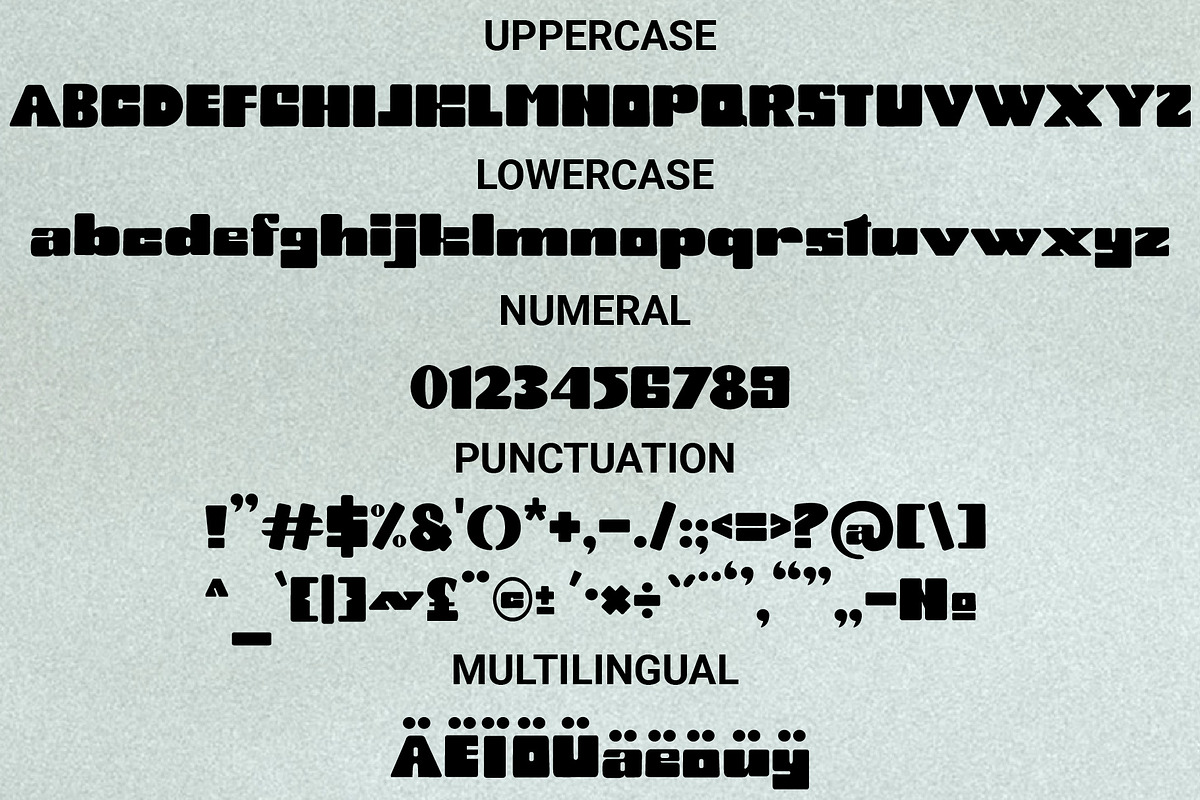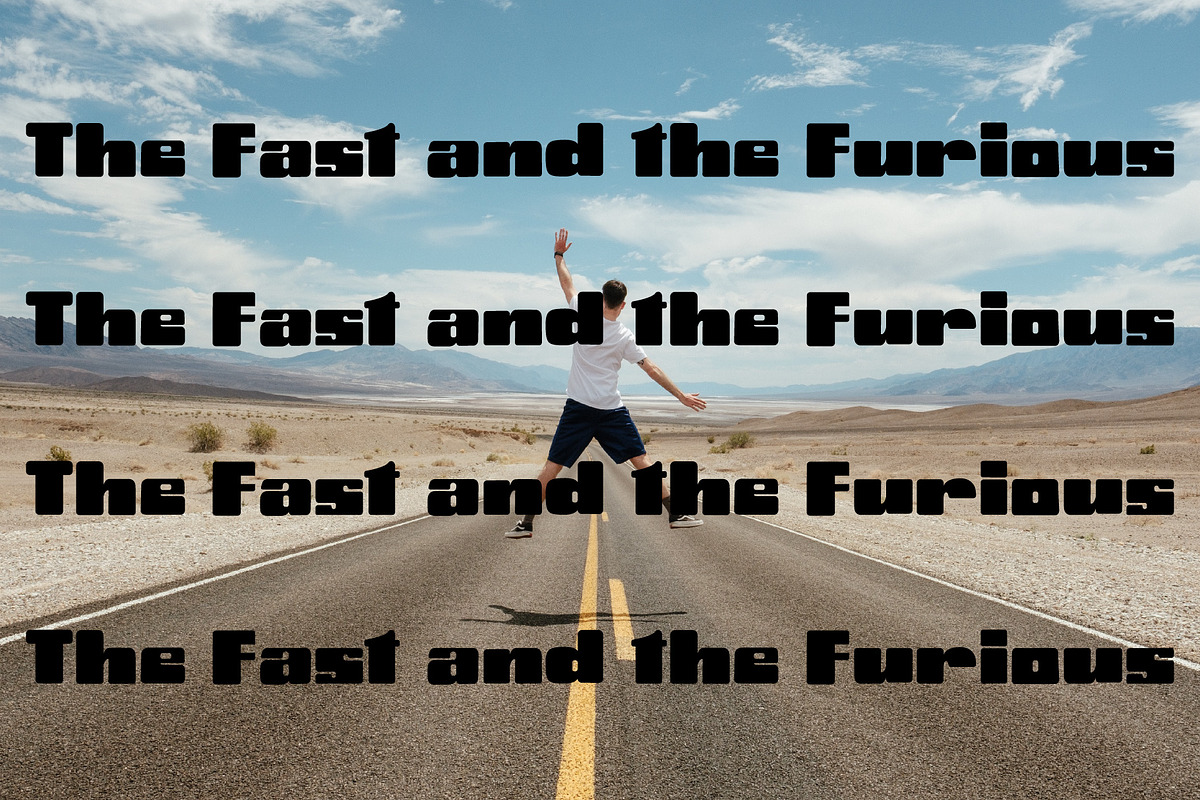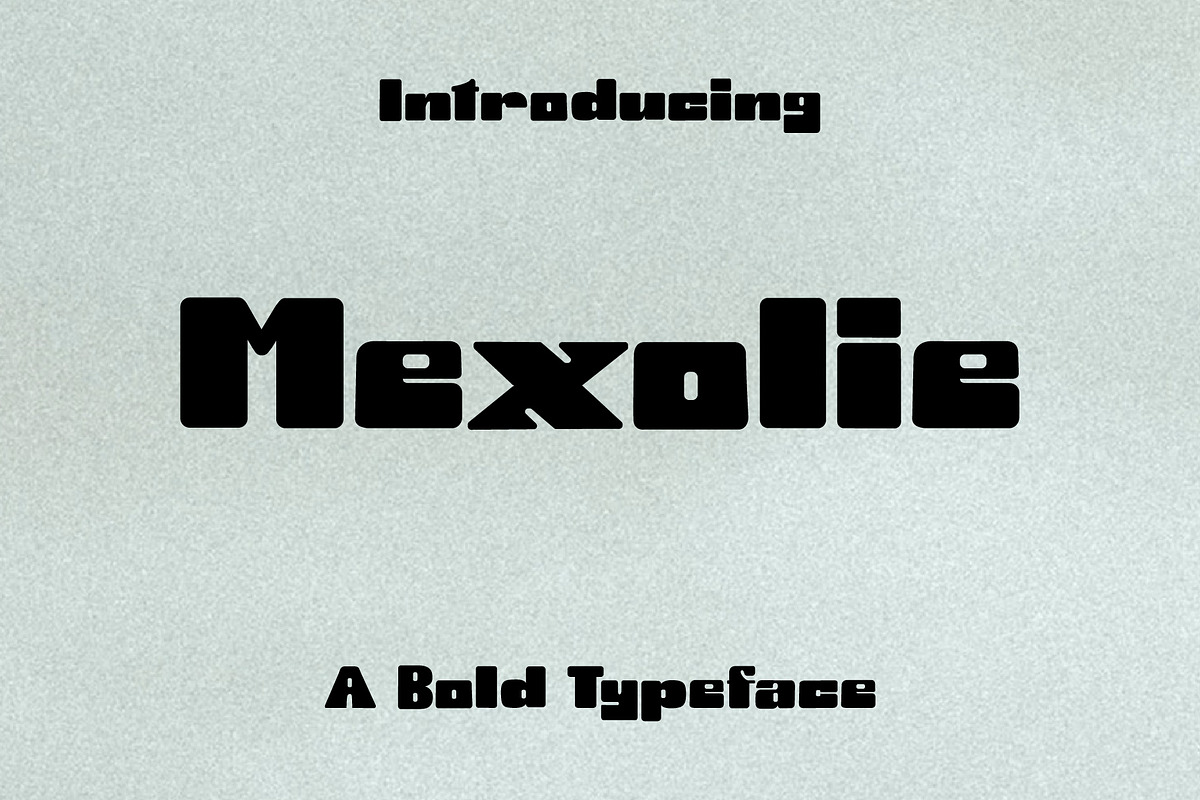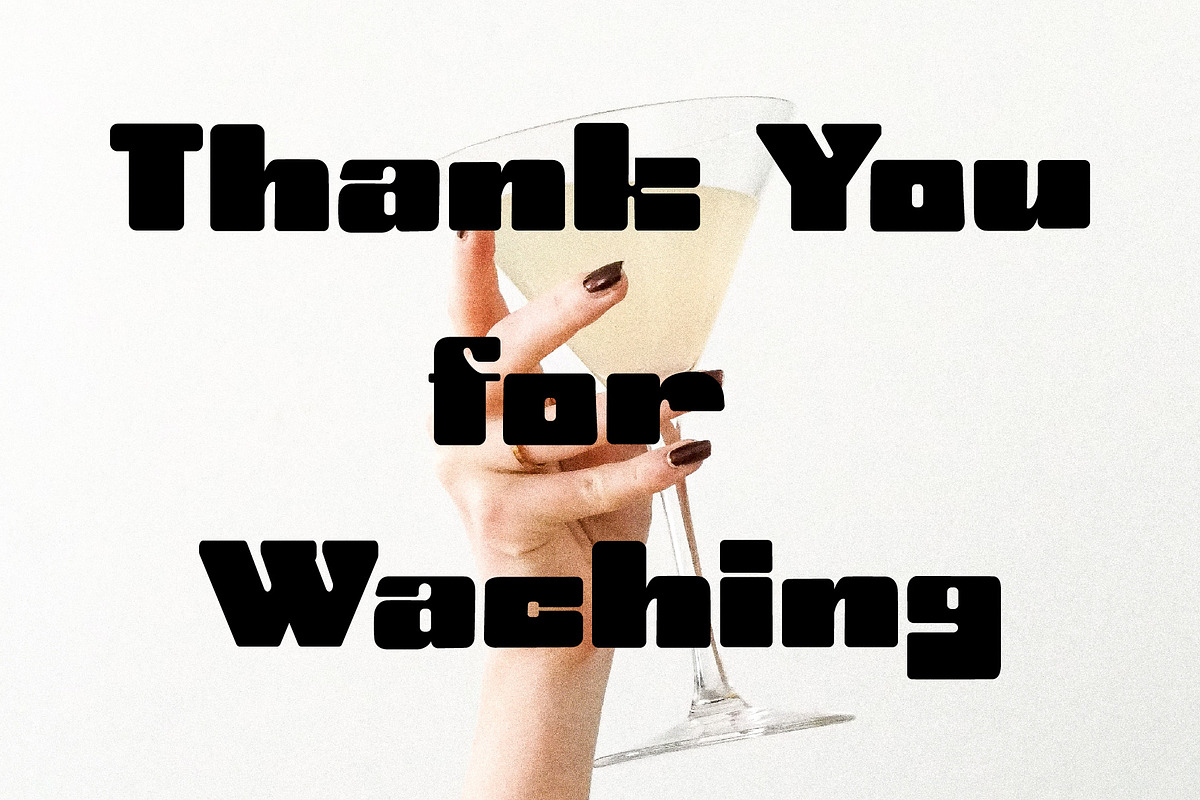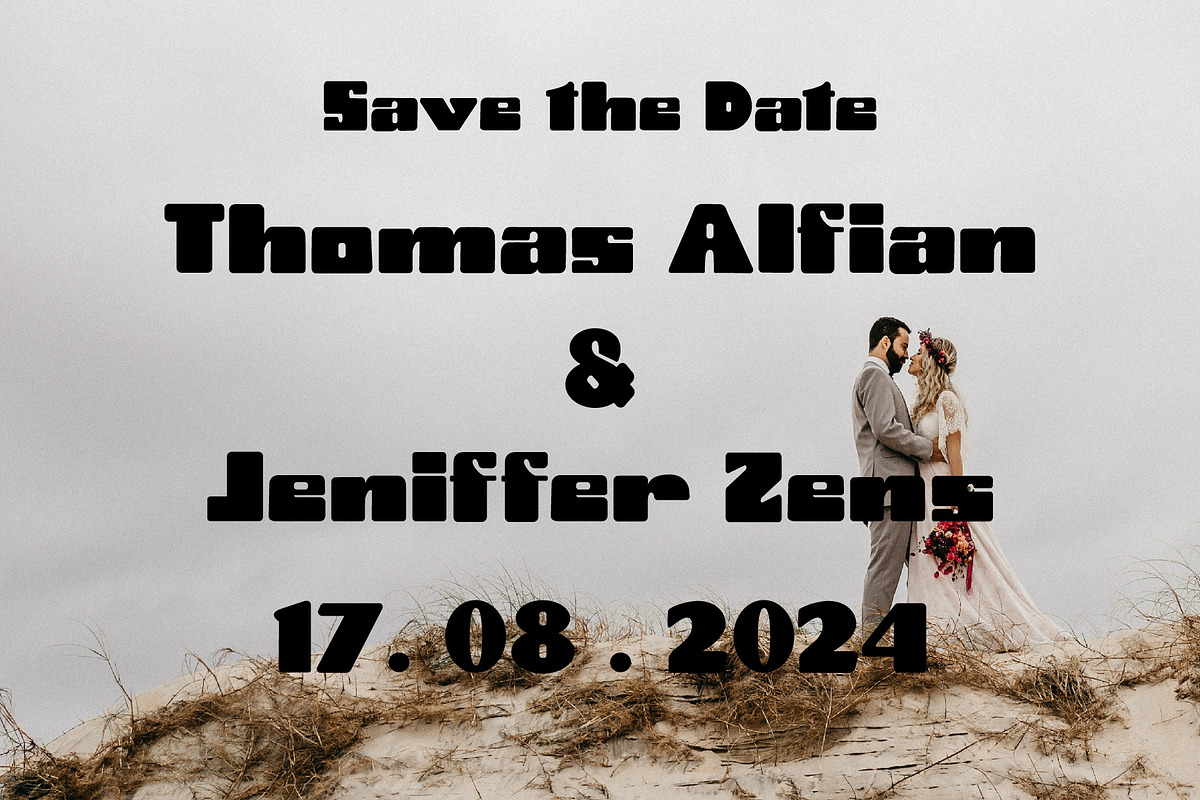
Mixolie
Mexolie is a bold type of font that is made as beautifully as possible, this font is good for use in printing, screen printing, posters or others. Thank You..